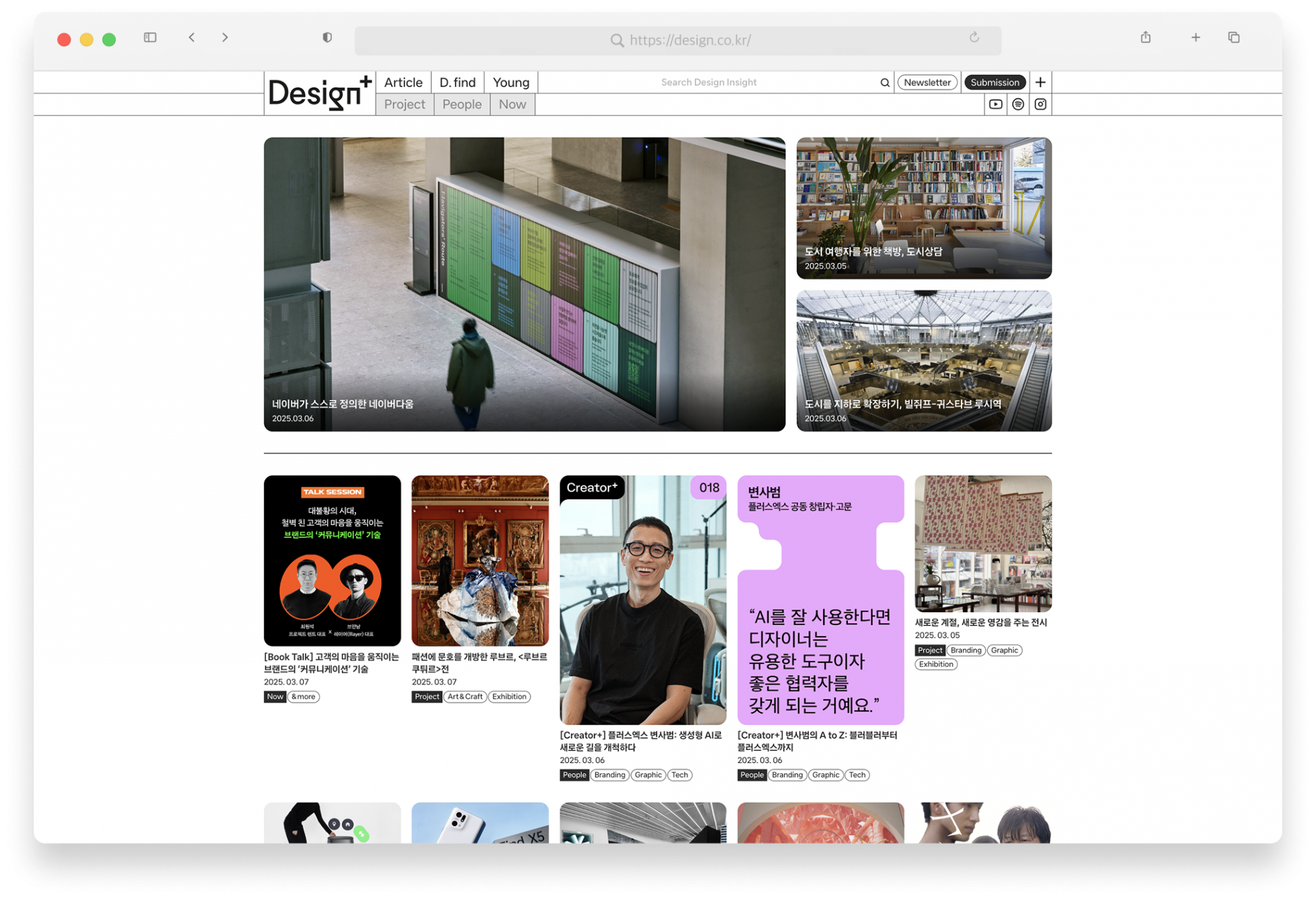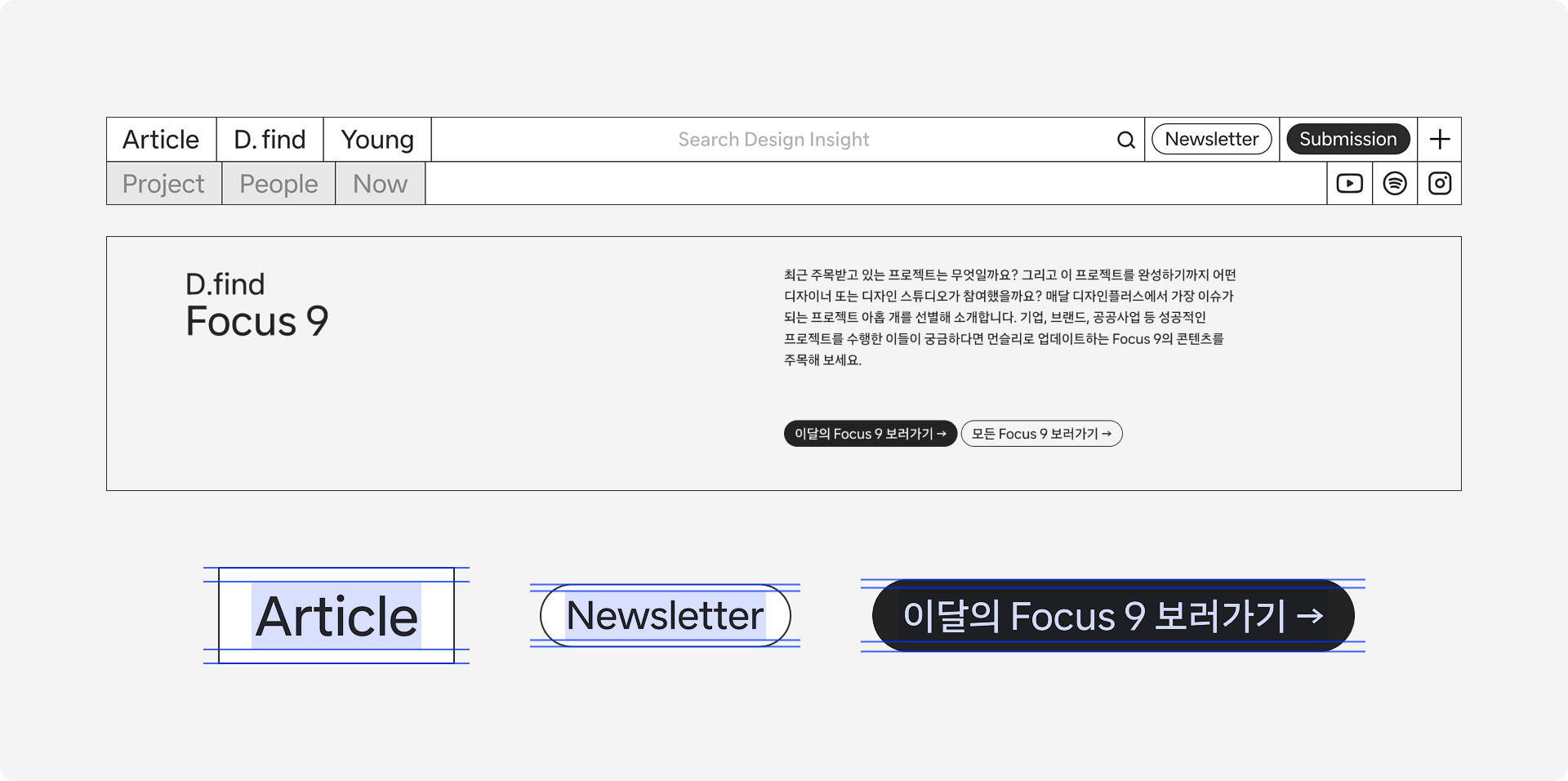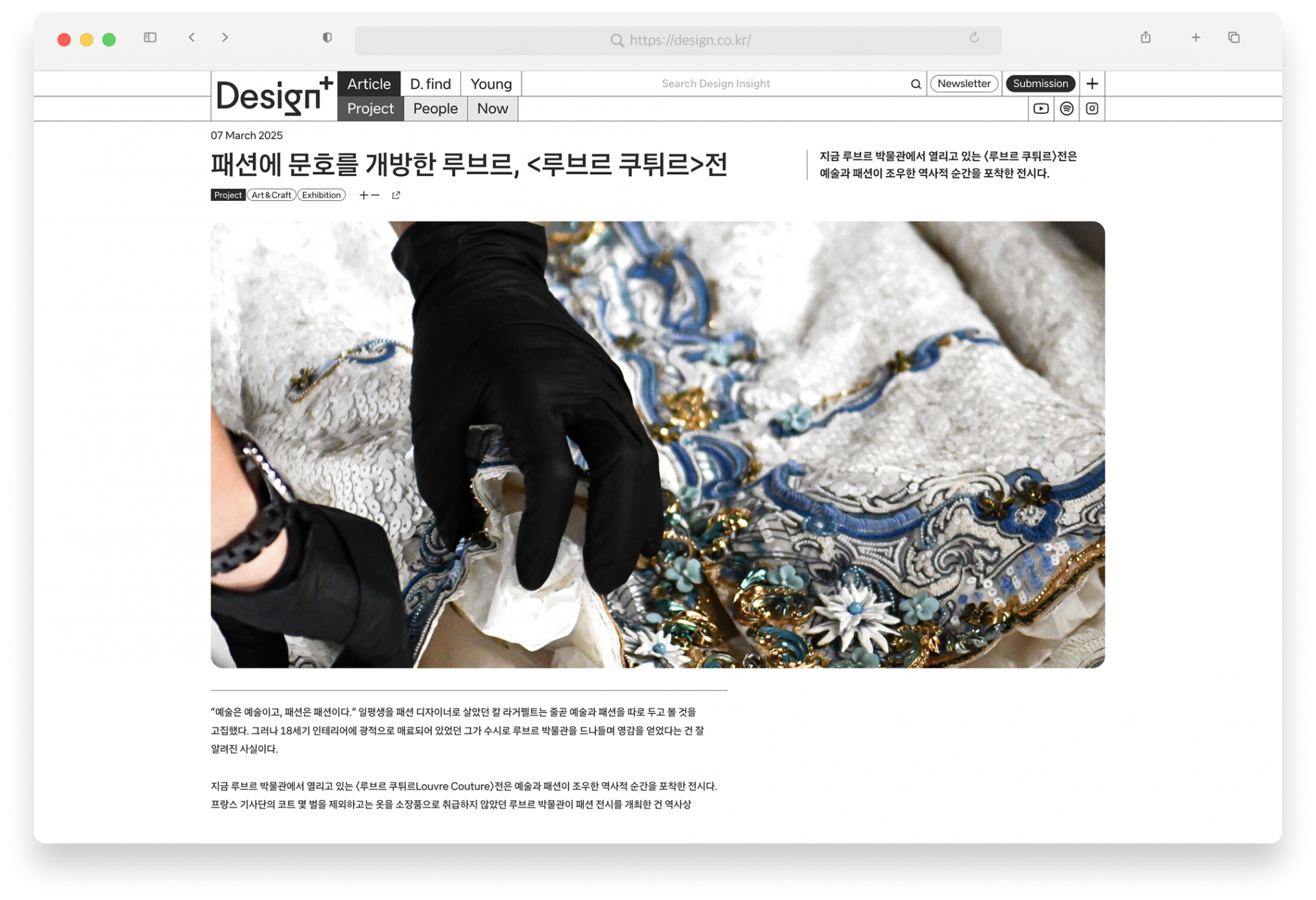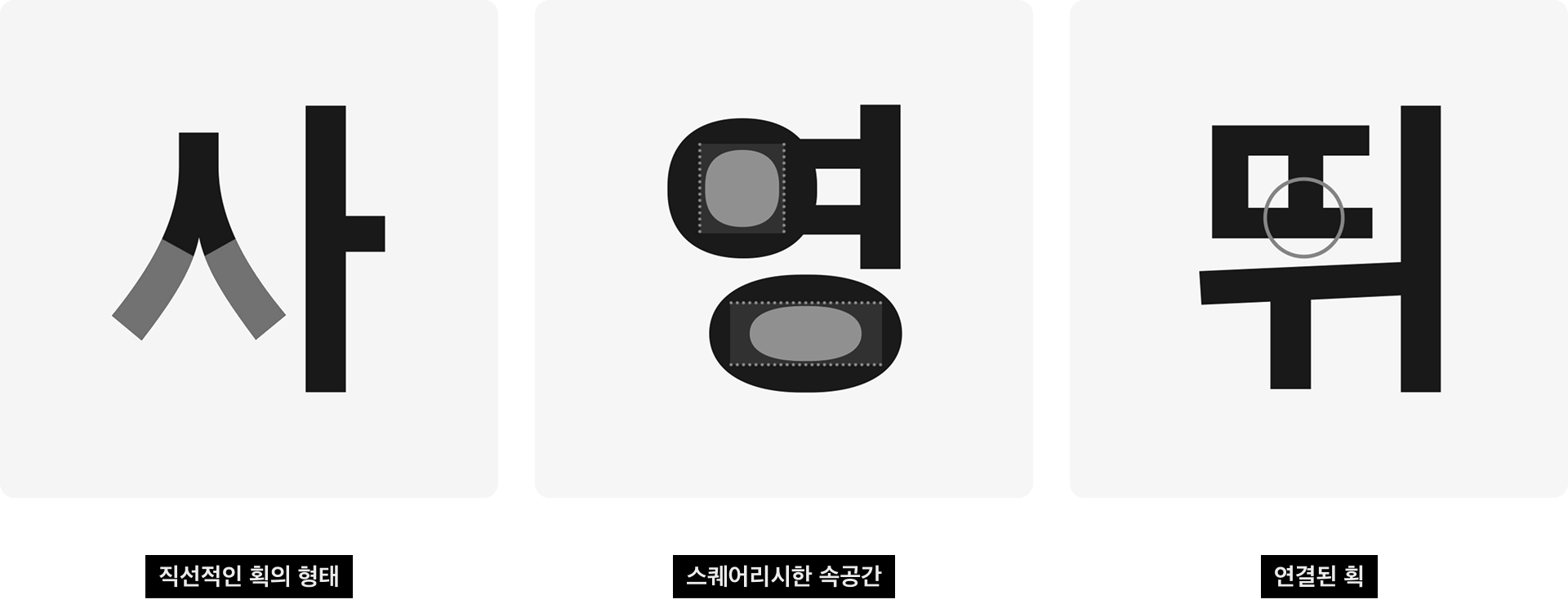
In Part 1, we explored the concept of designated fonts and looked at how the 『Sandoll Gothic Neo』 series influences brand perception. A designated font goes far beyond its function as a tool for delivering information—it serves as a powerful means of visually expressing brand identity. By applying a consistent typeface across multiple brand touchpoints, companies can maintain a unified visual language. Whether in printed materials like packages, leaflets, and contracts, on websites as web fonts, or embedded as system fonts in programs and devices, typography is fundamental to shaping brand experience.
But as mentioned in Part 1, not every brand owns a dedicated font. In those cases, choosing and consistently using a designated font that best aligns with the brand’s image is an excellent approach. In this Part 2 article, we’ll take a closer look at Sandoll’s new typeface, 「SD Minburi」, and explore how real-world applications show its ability to clarify and strengthen a brand’s impression. If you’re considering adopting a designated font, this article will serve as a practical reference for establishing your selection criteria.
What Is 「SD Minburi」?
Typographic environments have evolved significantly over time, with digital media in particular driving major change. Naturally, people’s needs and aesthetic preferences have shifted as well. As new contexts emerged, there was a growing demand for a text typeface suited to contemporary reading environments. 「SD Minburi」 was created in response to that very need.
The most defining characteristic of 「SD Minburi」 is that it is a Variable Font*. With adjustable weight and spacing, users can fine-tune the typeface to match brand personality and usage environments, resulting in exceptionally broad and precise application. For teams that prefer fixed styles, 「SD Minburi」 is also available as a Static Font**, offering multiple predefined weights and styles that allow designers to choose exactly the tone they need.
*Variable Font: A type format that contains multiple weights and styles within a single file, allowing users to adjust various axes dynamically.
**Static Font: A traditional type format with fixed weights and styles.
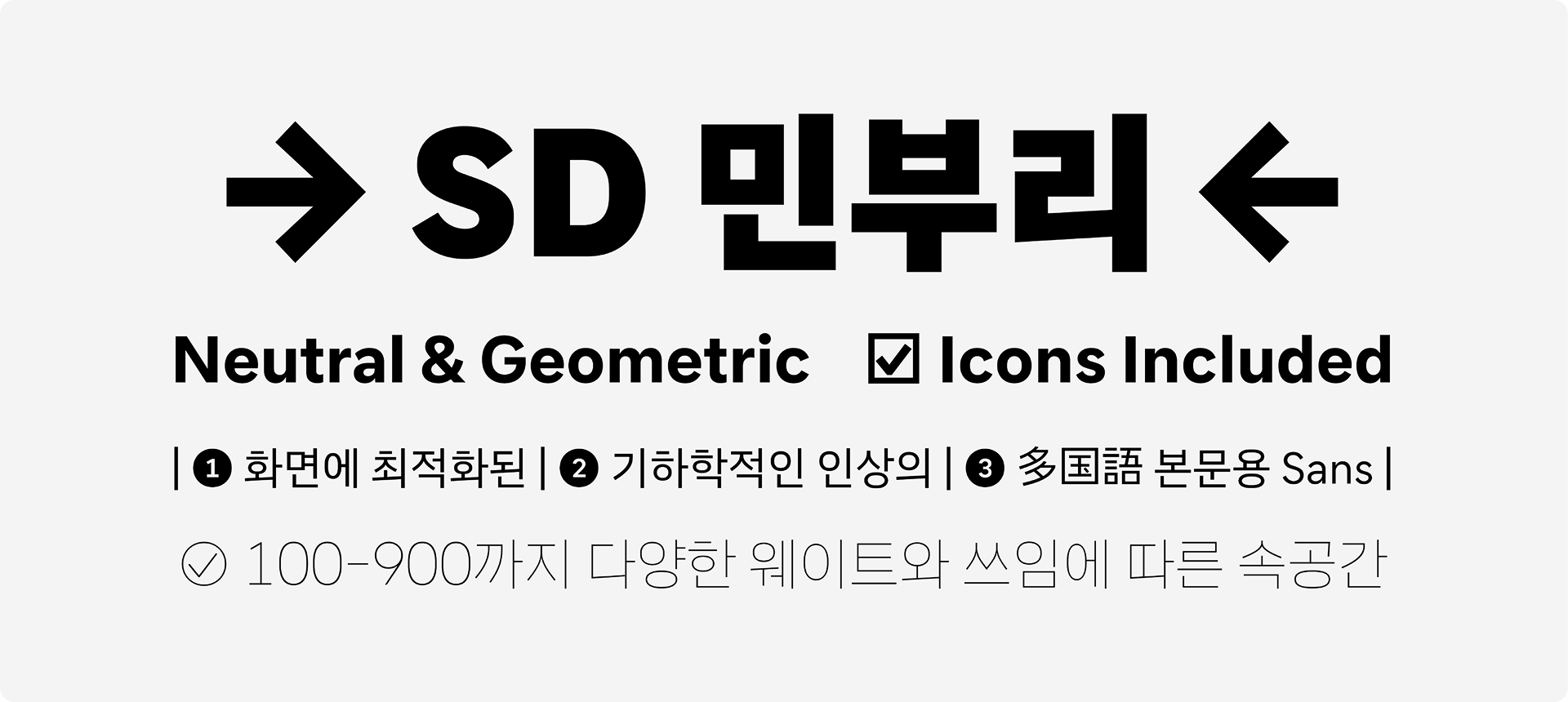
How to Use 「SD Minburi」
「SD Minburi」 offers an exceptionally wide weight spectrum. With adjustable values ranging from 100 to 900, its tone and emphasis can be tailored for various design goals. Near-weight 900 produces a heavy, powerful impression that enhances visibility—ideal for mobile banners or content titles that need to capture attention instantly.
Lighter weights offer a different utility. The 400–500 range corresponds to familiar Regular or Medium styles, making them well-suited for body text. As the weight approaches 100, strokes become thinner, making these styles particularly effective as accent elements in large, high-resolution display environments. They are especially useful when a strong contrast with bold titles is required.
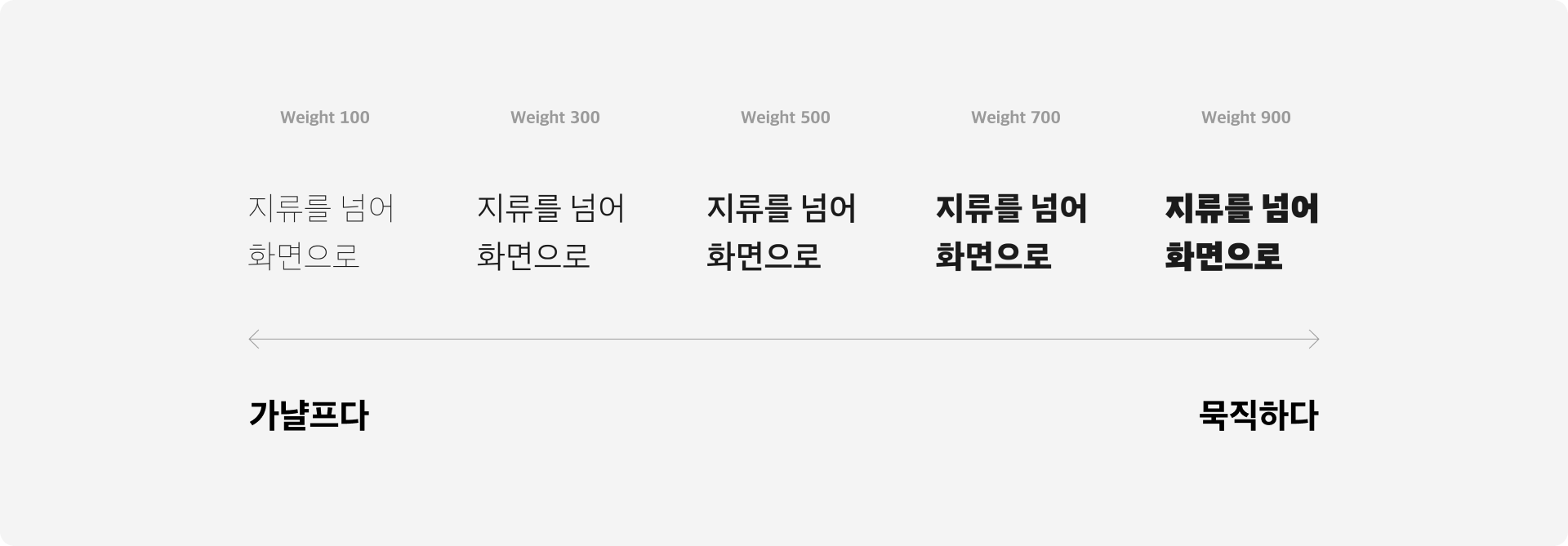
Another important feature of 「SD Minburi」 is its centered visual baseline. This design choice was made to support multilingual environments. When Korean and English appear together, the text maintains a natural flow and provides a consistent reading experience. For brands that frequently mix or pair multiple languages, this becomes an especially valuable strength.
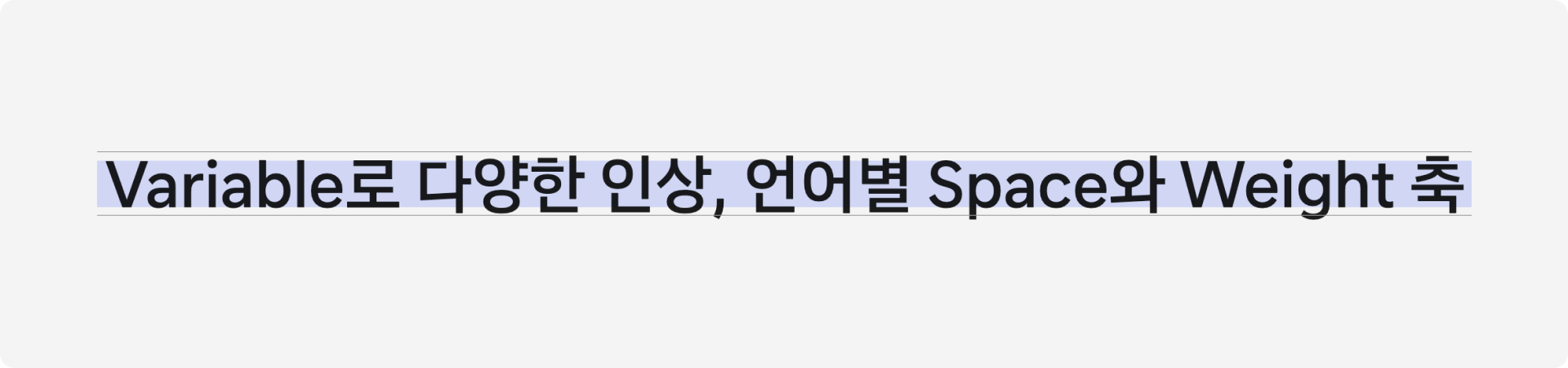
Beyond weight, 「SD Minburi」 provides two distinct Space axes—one for Latin and one for Hangul. These values range from 1 to 9, shifting the typeface from a lighter, airier square structure to a denser and more compact appearance. When the Space value is near 1, inner spacing tightens and the size of the consonantal letterforms*** decreases, creating a gentle and lyrical tone that pairs well with calm lifestyle brands.
Space 2–3 offers the most universally familiar spacing—broadly adaptable to many brand identities. It works particularly well for tech and IT brands that prioritize straightforward, minimal expression, and for consulting or finance brands where clarity and trustworthiness are essential.
When the Space axis approaches 9, inter-character cohesion becomes more pronounced. Narrower spacing reinforces a sturdy, energetic tone well-suited for brands aiming to express dynamism and vitality.
***consonantal letterforms(dah-ja): A term referring to consonantal Hangul characters. (Vowel characters are called vowel letterforms.)
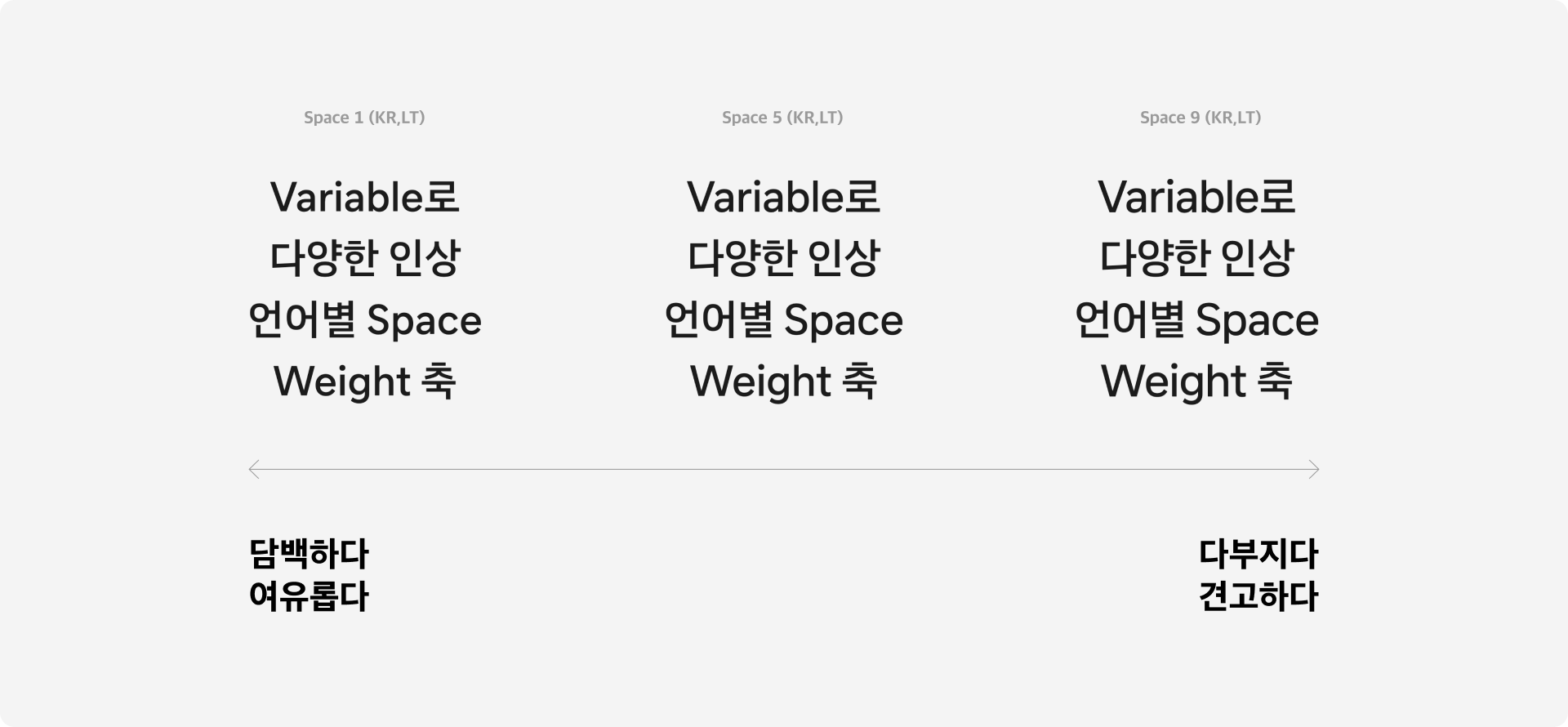
As a text typeface, 「SD Minburi」 maintains a neutral presence while refining curved letterforms into straighter, more geometric shapes. This enhances legibility in digital interfaces and introduces a new, contemporary form of neutrality that differs from traditional text fonts. For more detailed information, visit the microsite linked above.
Let’s Look at a Real-World Application
DesignPlus is a platform that offers a wide range of information and content across the design industry. Beginning with its 2024 beta launch, 「SD Minburi」 was adopted as an embedding font**** for the DesignPlus website. As the designated font, it played a significant role in amplifying the brand’s intended image. Since the platform handles the latest design information, achieving both a trendy aesthetic and a sense of trust was essential. 「SD Minburi」’s geometric yet neutral visual character naturally aligned with that goal.